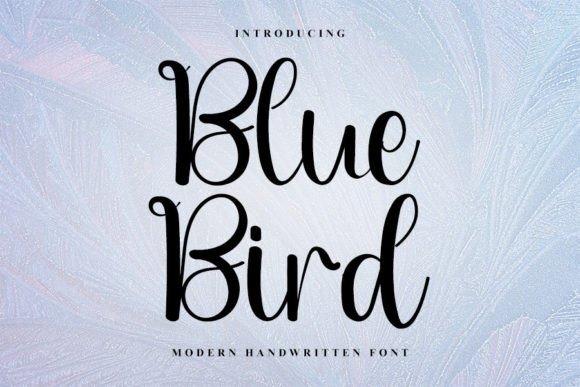
In a world saturated with generic fonts, Blue Bird emerges as a breath of fresh air, a symphony of elegance and creativity. Embrace the beauty of handwritten artistry with this script font, meticulously crafted to add a touch of sophistication to your designs. Let your imagination soar as you explore the endless possibilities that lie within Blue Bird's graceful curves and delicate strokes.
Immerse yourself in the timeless allure of Blue Bird, a font that transcends the boundaries of time. Its meticulously crafted characters exude an aura of sophistication, lending a touch of understated elegance to your creations. Whether you're a seasoned designer or just starting your creative journey, Blue Bird is your perfect companion, guiding you towards design excellence.
Step into a realm where creativity knows no bounds, where your designs take on a life of their own. Blue Bird empowers you to craft logos that captivate, branding that resonates, and social media content that electrifies. Let your imagination run wild as you harness the power of Blue Bird to create visual masterpieces that leave a lasting impression.
With Blue Bird as your artistic ally, you'll discover a world of opportunities, transforming mundane projects into extraordinary endeavors. Its versatility knows no limits, lending itself effortlessly to a myriad of design applications. From enchanting wedding invitations to captivating social media posts, Blue Bird adds a touch of magic to every project it graces.
Join the ranks of creative visionaries who have embraced the allure of Blue Bird, unlocking the potential of their designs and leaving an indelible mark on the world. Let your creativity flourish as you harness the power of this remarkable font, creating designs that resonate with audiences and leave a lasting legacy.